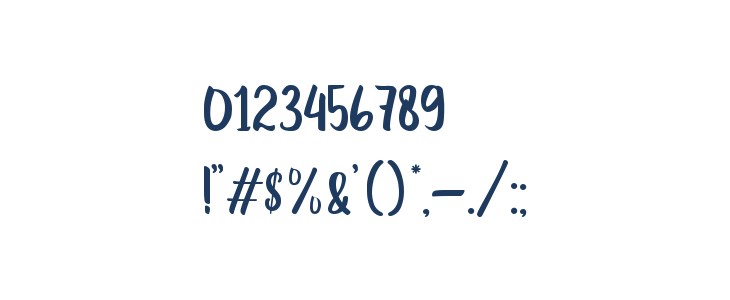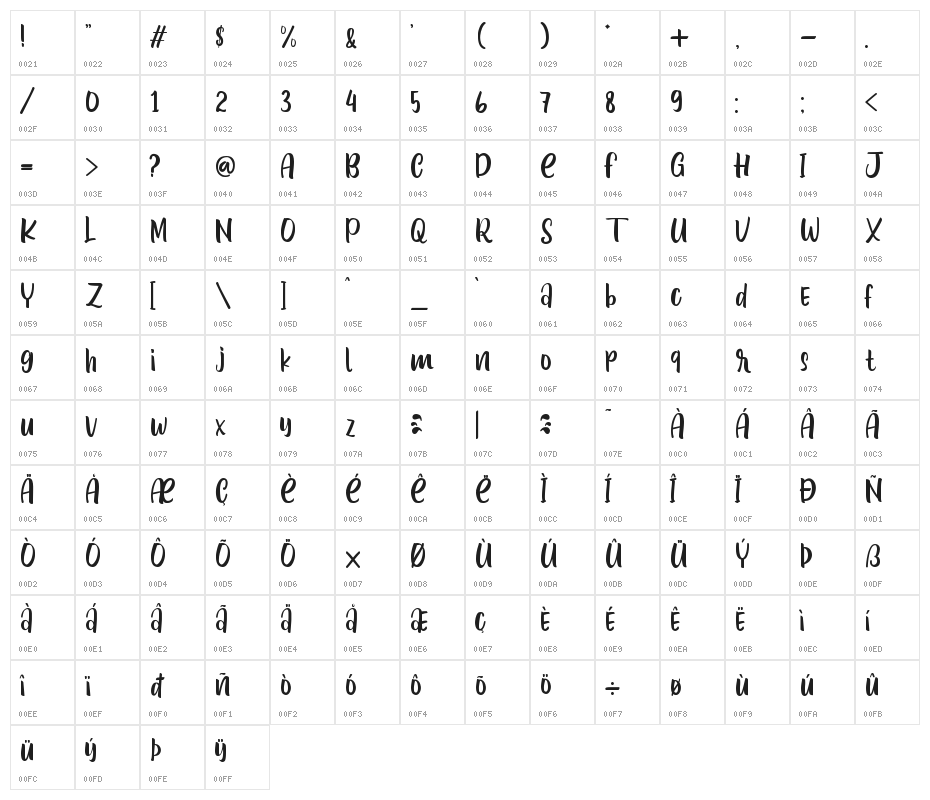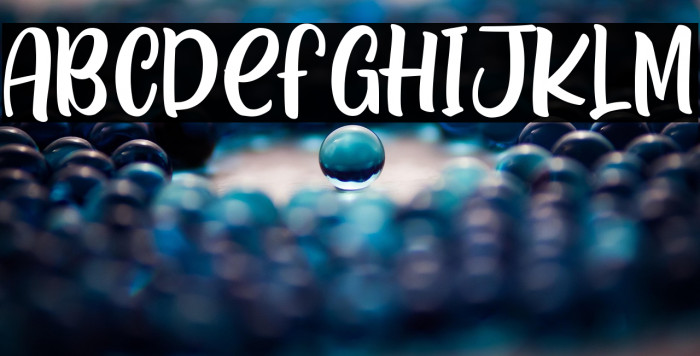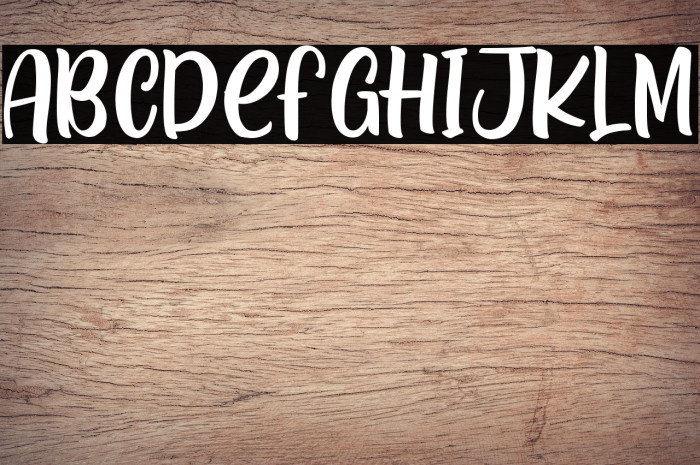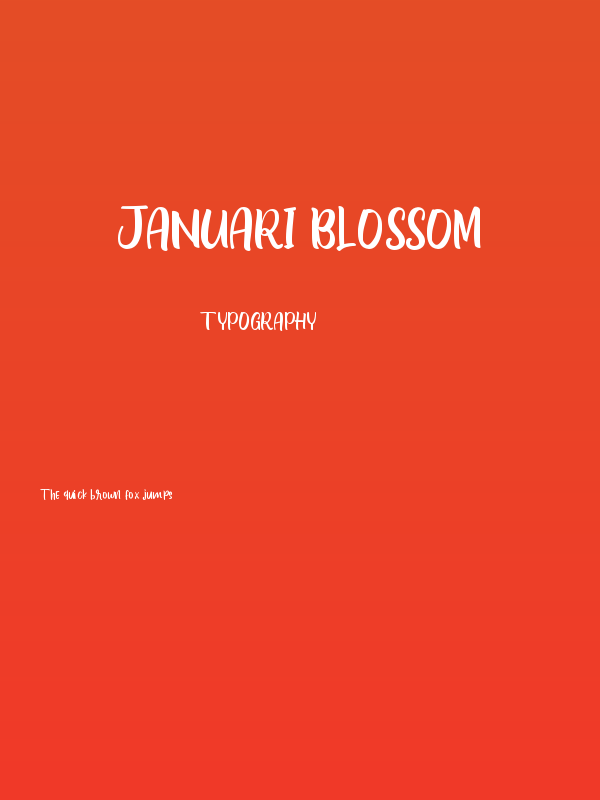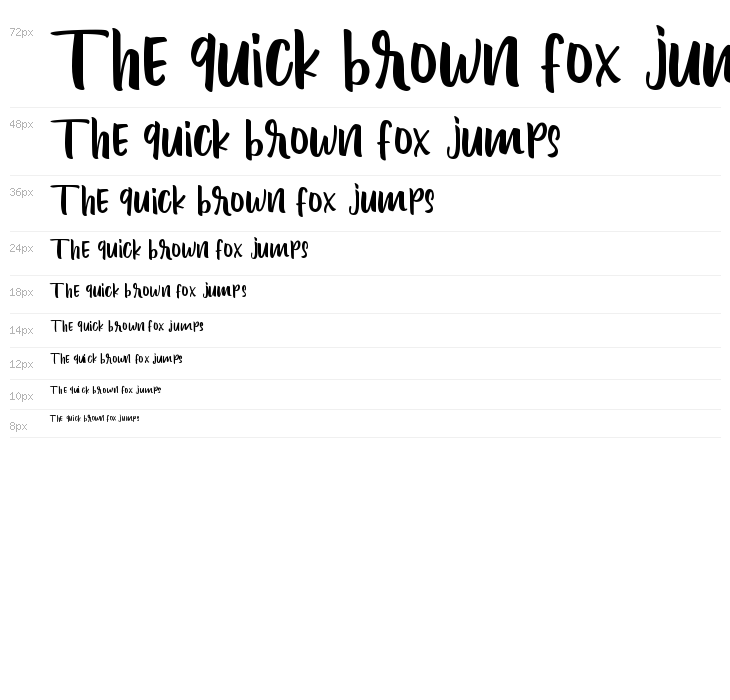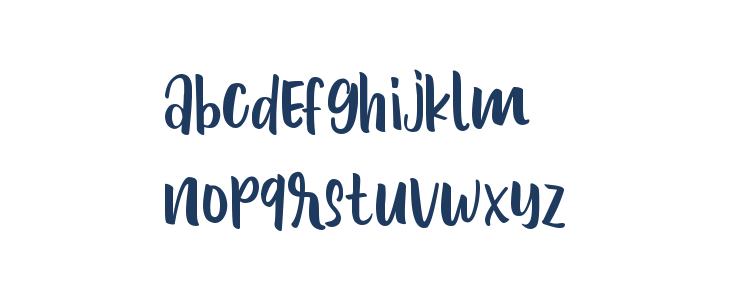
Januari Blossom Font
Januari Blossom Description
This font features a playful and energetic script style with a handwritten appearance. The letters are bold and slightly slanted, giving a sense of movement and fluidity. The strokes are thick and consistent, providing a strong visual impact. The uppercase and lowercase letters maintain a cohesive look, while the numbers and special characters complement the overall design. This font is ideal for projects that require a lively and informal touch, such as invitations, posters, and branding materials.
| Overall Style | Playful, Energetic, Handwritten |
| Proposed Projects | Ideal for invitations, posters, branding, and any project needing a lively, informal touch. |